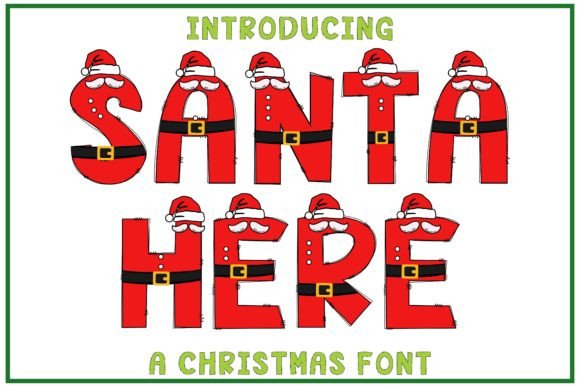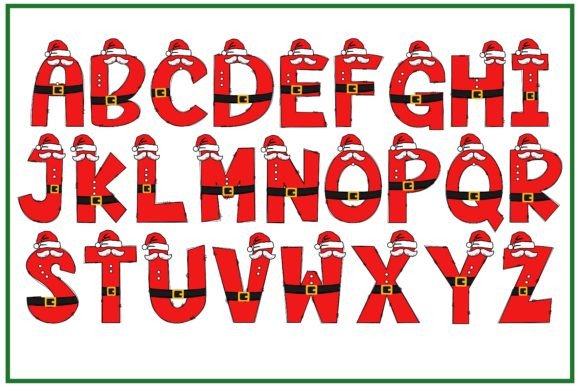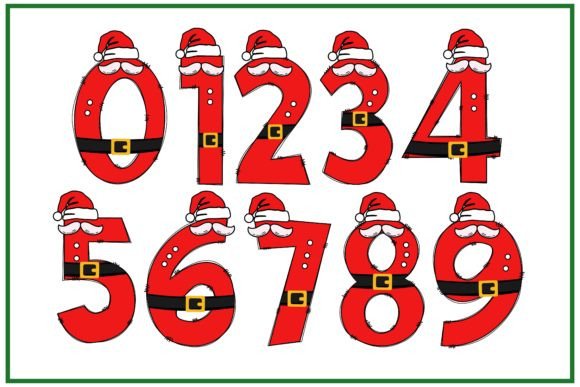
Santa Here Font
Santa Here is a cute color font with lovely Santa hats. It embodies playfulness and authenticity and is the perfect choice for any Christmas project or any children’s activity or any school project.